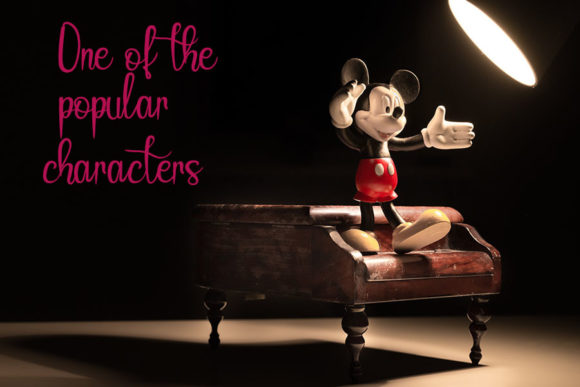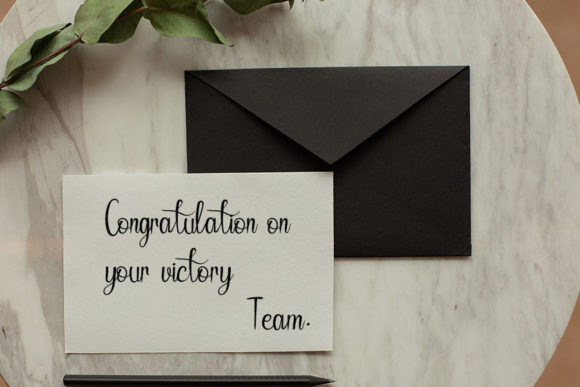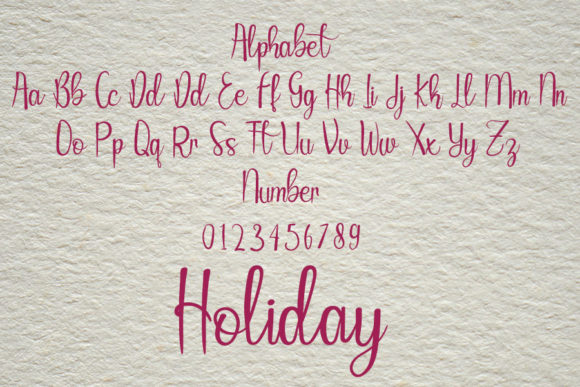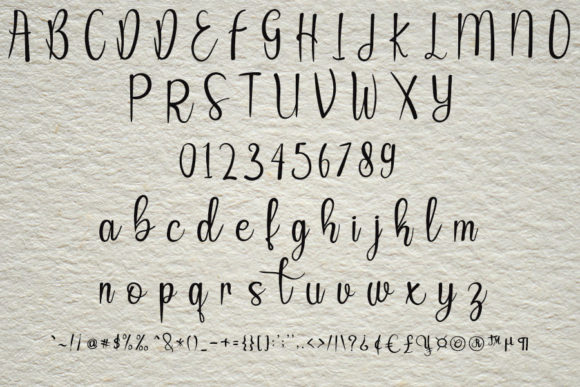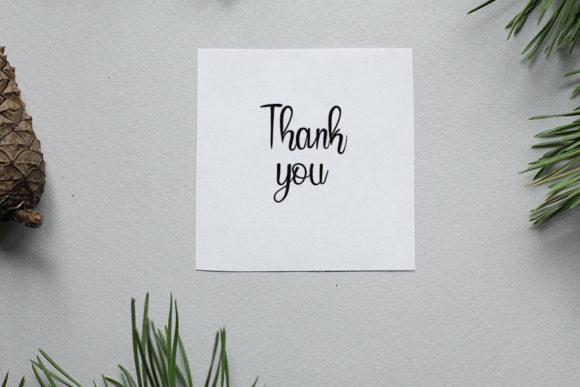
Unwrapping the Perfect Font for Your Holiday Projects
Enter the Holiday Font – a charming, handwritten font that’s been crafted to make your designs truly shine. With its classy calligraphic influences and contemporary twist, this font is the perfect companion for any creative project. Whether you’re working on a festive holiday campaign or a personal blog post, the Holiday Font is sure to bring a touch of warmth and personality to your work.
Holiday Font Key Features
- Font Family: Holiday Font is a unique, hand-drawn font designed for festive and holiday-themed projects.
- Unique Characteristics: The font features intricate, hand-drawn details and ornaments, adding a touch of elegance and whimsy to holiday-themed designs.
Holiday Font Review
As a designer, I’ve had the chance to work with various fonts, and the Holiday Font is one that caught my attention. ✨ Here are some things that work well:
- Unique and festive design: The font’s playful and whimsical feel makes it perfect for holiday-themed projects, such as Christmas or New Year’s cards.
- Good legibility: Despite its decorative nature, the font remains easy to read, even at smaller sizes.
- Customizable: The font comes in a range of weights and styles, allowing designers to choose the perfect fit for their project.
- Not suitable for formal projects: While the font is great for casual, festive projects, it may not be the best choice for formal or professional designs.
- May be too ornate: For some designers, the font’s elaborate design may be overwhelming or difficult to work with.
Overall, I think the Holiday Font is a fun and creative option for designers looking to add some festive flair to their projects. While it may have its limitations, it’s a great choice for the right type of project.
Tips for Getting the Most Out of Holiday Font
For optimal results, use Holiday Font in conjunction with festive graphics and colors to create a cohesive holiday design.
Experiment with different font sizes and colors to create visual interest and emphasis.
Holiday Font is perfect for:
- Holiday greeting cards and invitations
- Christmas and New Year’s Eve party decorations
- Holiday